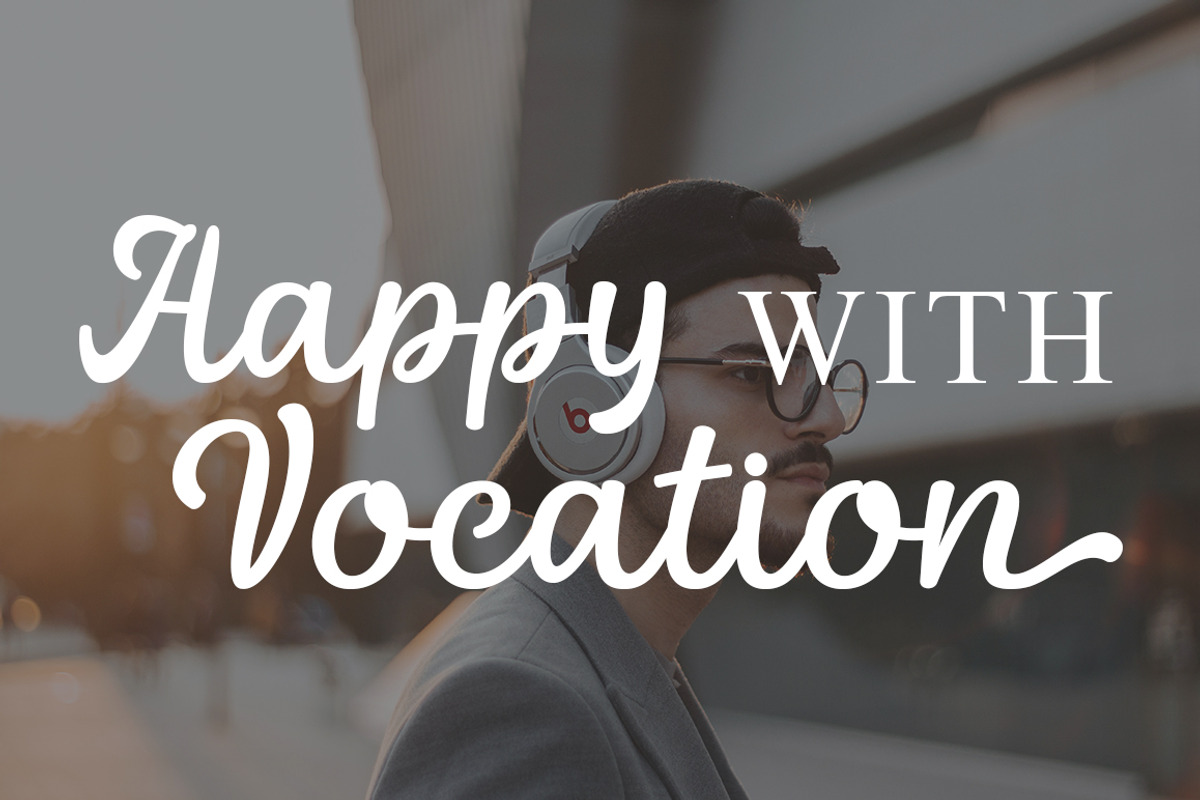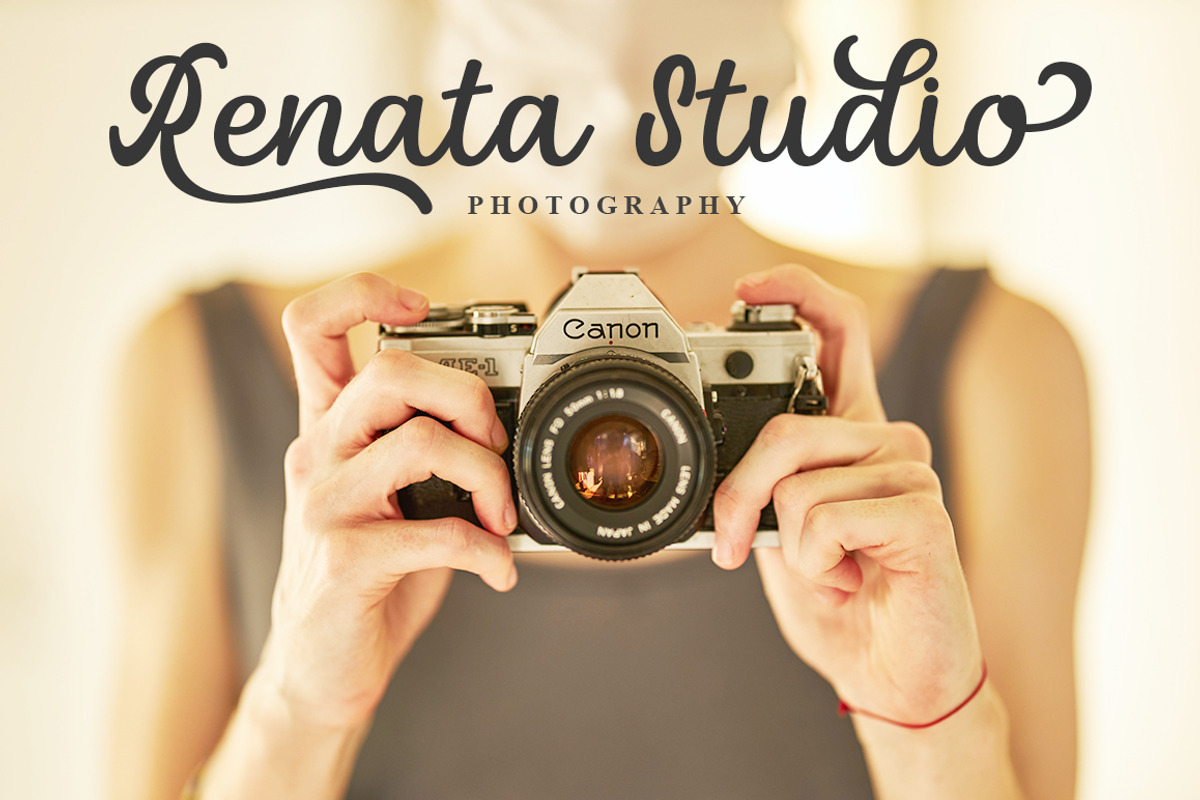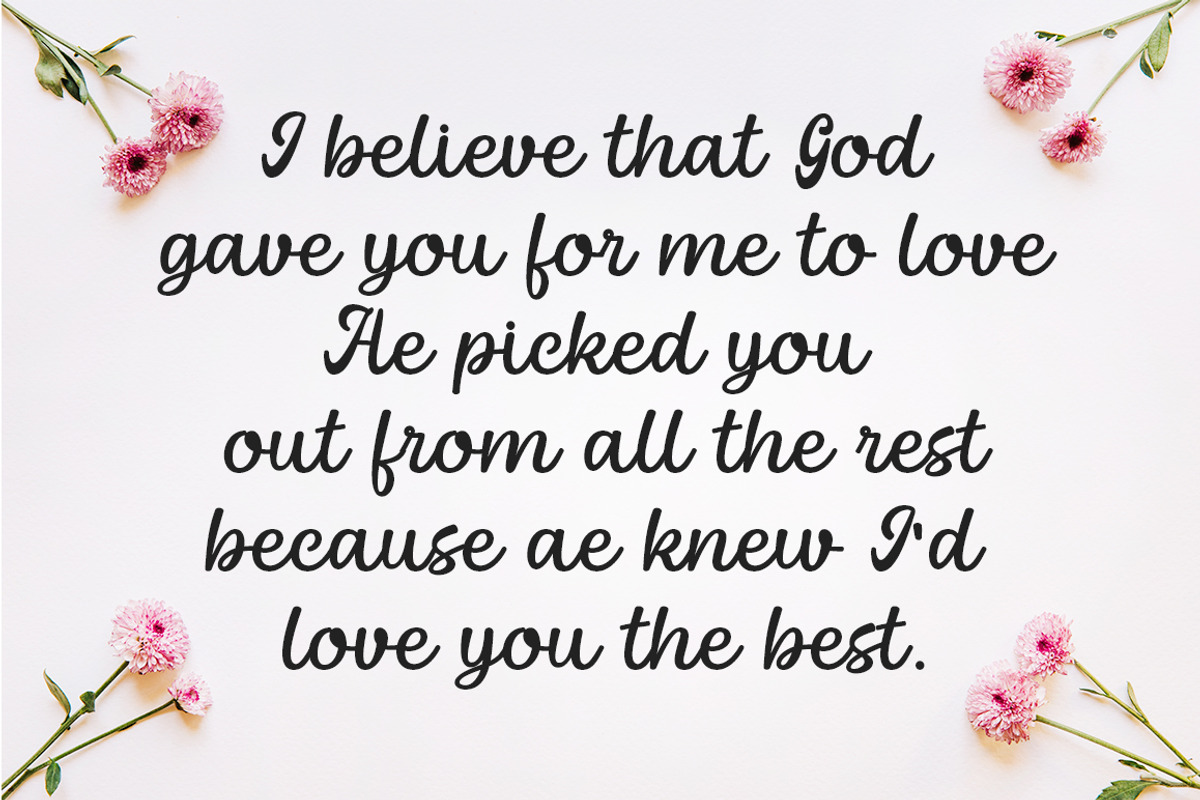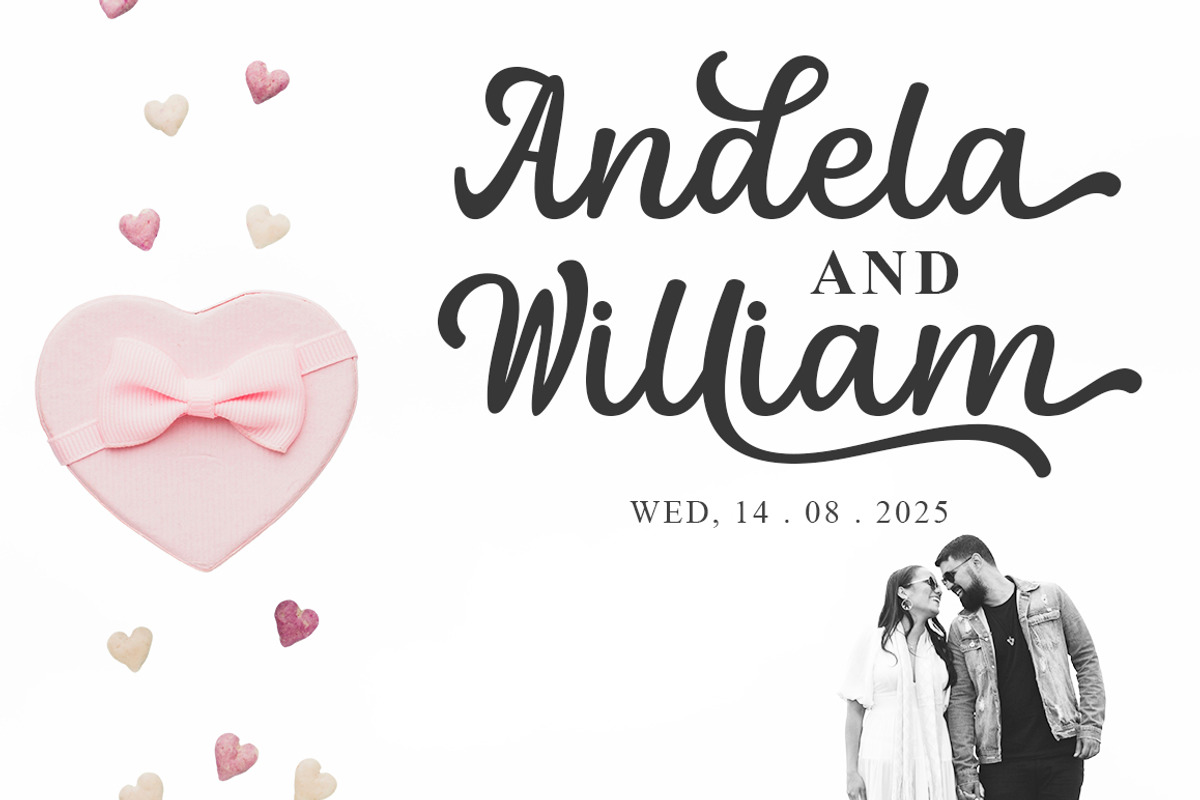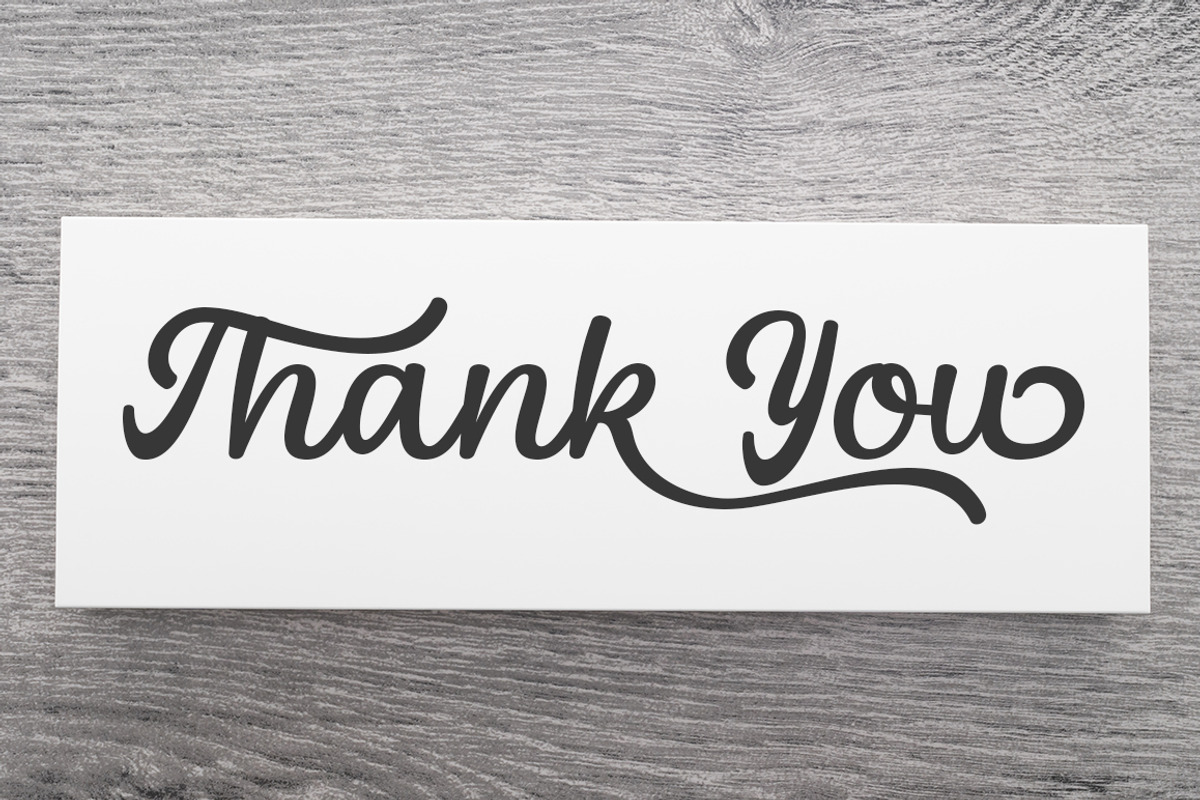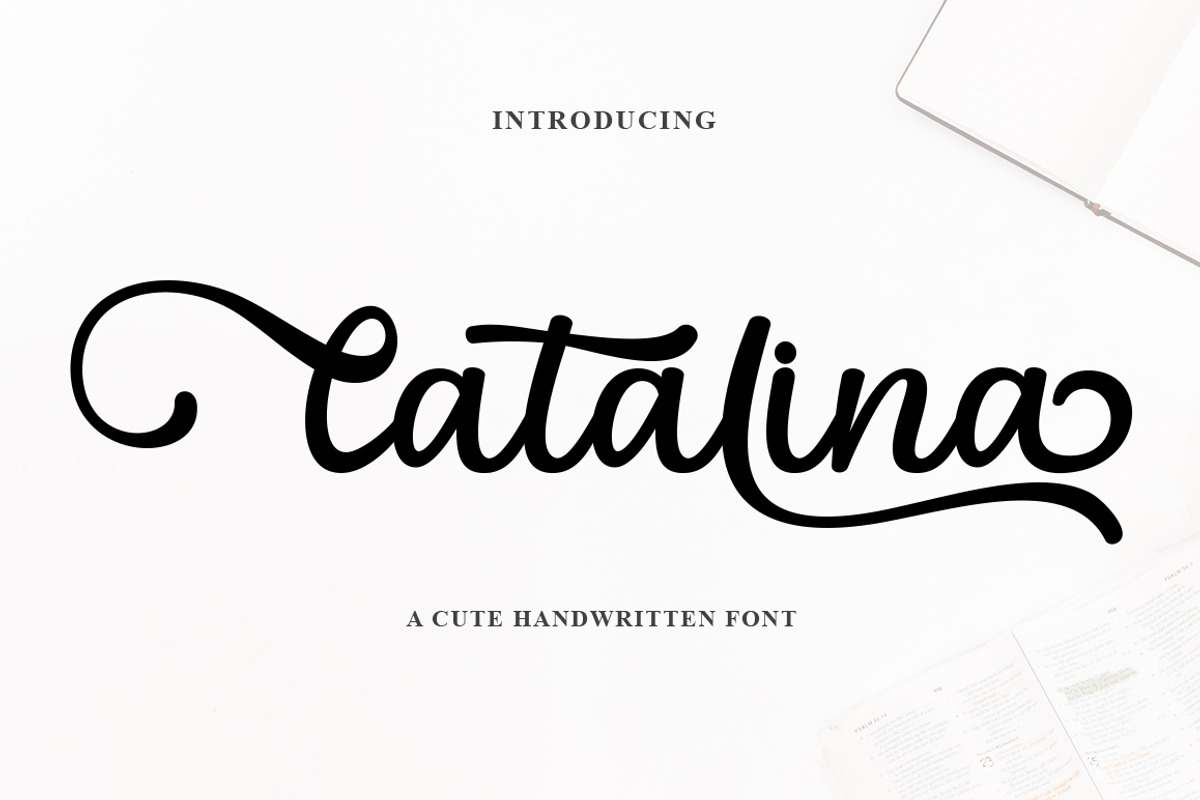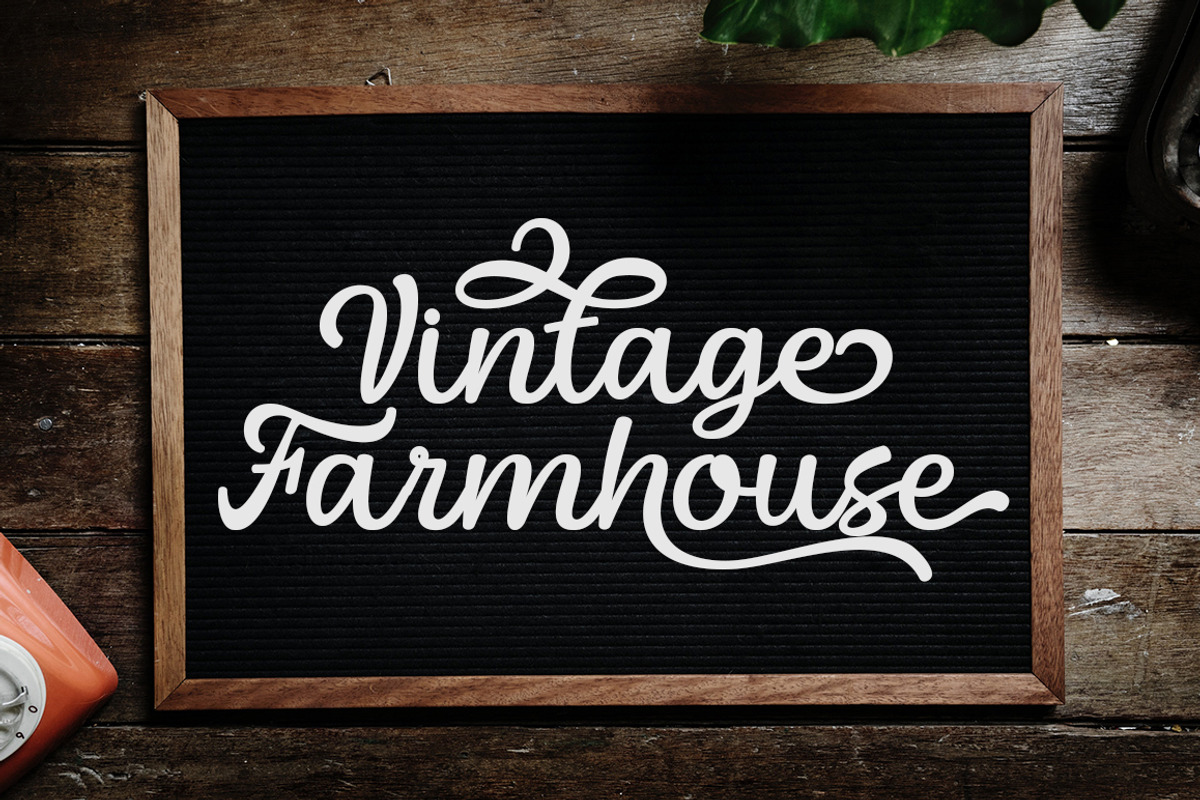
Catalina - Sweet Script Font
Catalina Sweet Script Font is a charming and elegant handwritten typeface designed to bring a soft, feminine, and modern touch to your creative projects. With its smooth curves, flowing strokes, and stylish swashes, Catalina delivers a natural handwritten feel that is both playful and sophisticated.
Perfect for branding, logos, wedding invitations, social media posts, packaging, and any design that needs a warm and lovely aesthetic. The graceful letterforms and balanced spacing make it highly versatile and easy to use.
Whether you're creating romantic designs or stylish branding, Catalina adds a beautiful personal touch to every project.
Smooth handwritten script style Elegant swashes and curves Perfect for feminine and romantic designs Easy to read and versatile Suitable for digital and print use